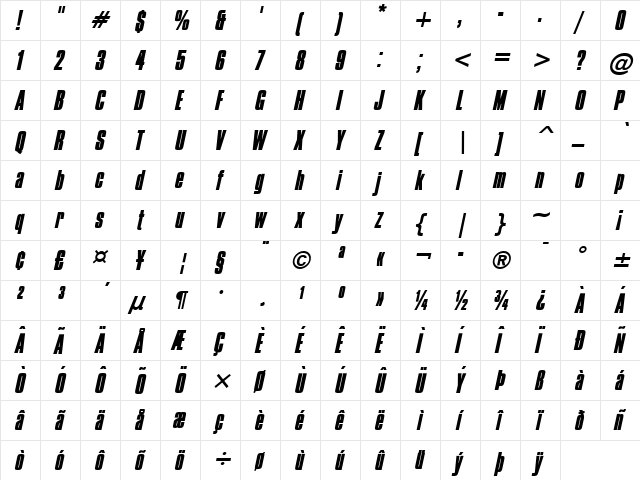
Commador Heavy Italic
Design Context for Commador Heavy Typeface
Commador Heavy takes a measured approach to typography — its balanced proportions and neutral character make it a reliable workhorse for both digital and print work. Its italic angle brings a sense of urgency and motion to the letterforms.
Pro Tip: Use Commador Heavy for emphasis, pull quotes, and subheadings where its slanted energy can add rhythm to the layout.